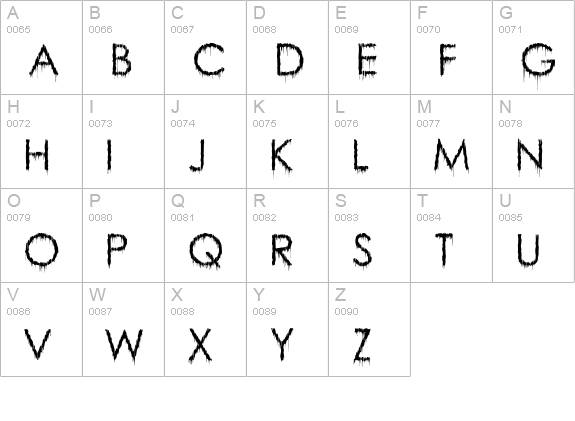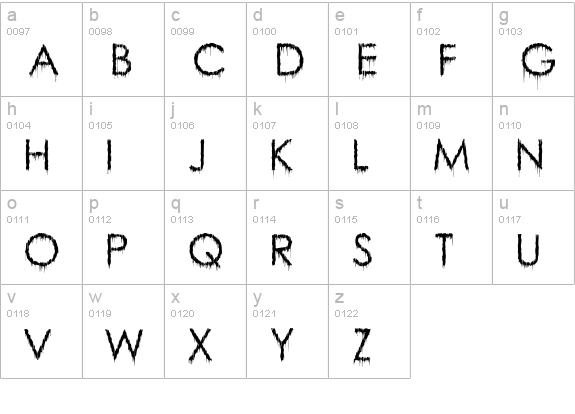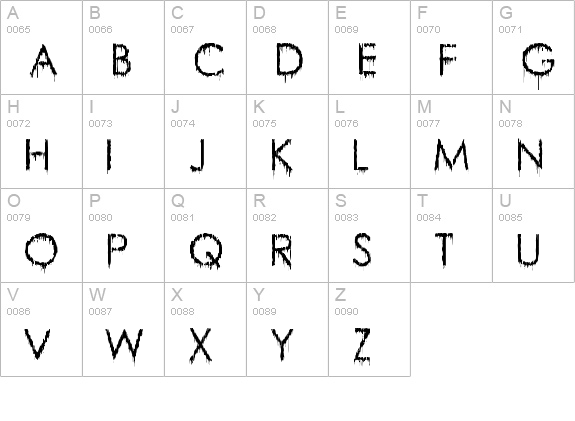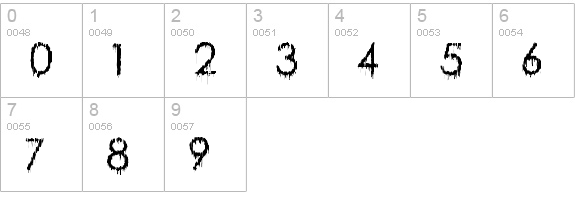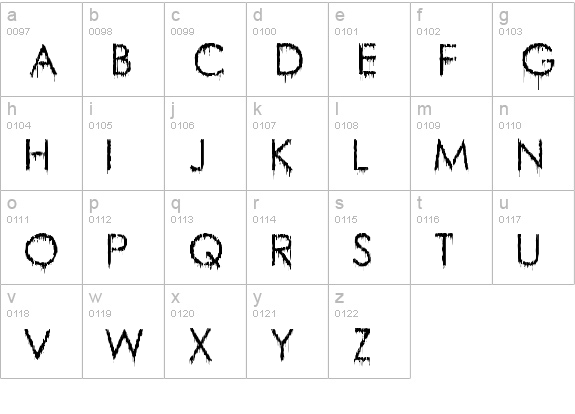
Rainy Day Vandal Demo font is a bold and dynamic display typeface that brings a rebellious spirit to your designs. This font is perfect for capturing the edginess and urban vibes of street art and graffiti. With its rough and rugged letterforms, Rainy Day Vandal Demo font adds a gritty and raw aesthetic to any project. Featuring uppercase and lowercase letters, numbers, and punctuation marks, this font offers versatility and flexibility for your creative endeavors. Whether you're designing posters, album covers, or branding materials, Rainy Day Vandal Demo font will make a bold statement and leave a lasting impression. And the best part? Rainy Day Vandal Demo font is completely free! It is freely available to download at FontsMarket.com, a trusted source for high-quality fonts. With just a few clicks, you can add this powerful typeface to your collection and start incorporating its urban flair into your designs. Don't miss out on the opportunity to enhance your projects with Rainy Day Vandal Demo font's unique and expressive style. Download it today and let your creativity run wild!